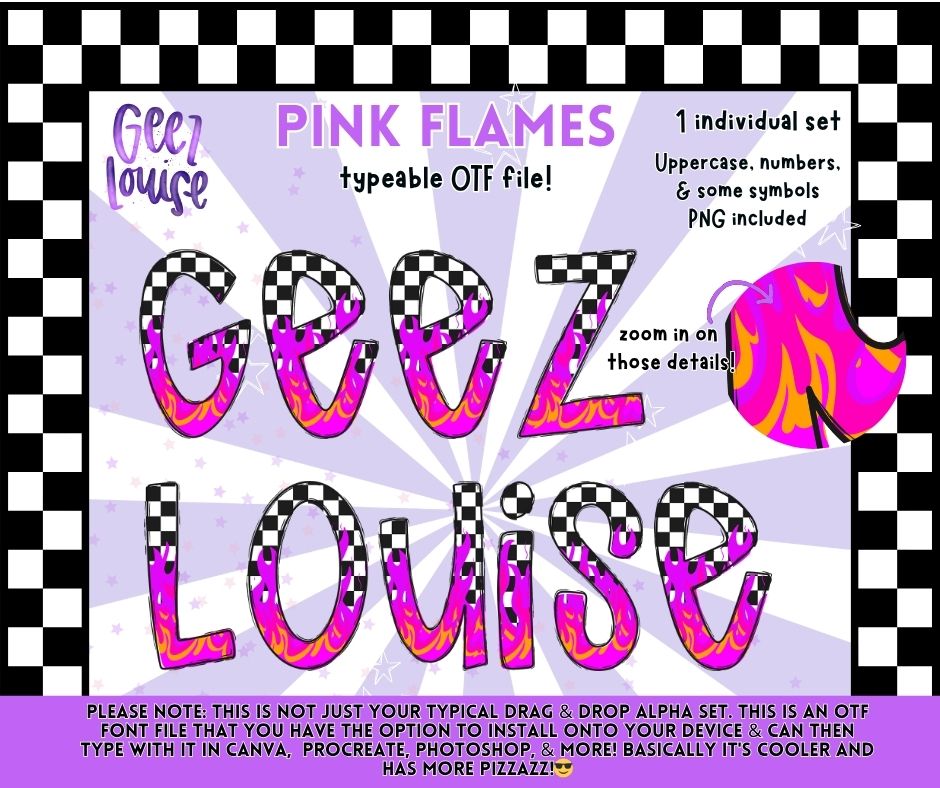
Pink Flames Checkered OTF Font | Typeable Alpha Font + PNG | Retro Neon Grunge Letter Set
Turn your text into a whole vibe with this bold and fiery Pink Flames OTF font 🔥✨
This isn’t your typical drag-and-drop alpha… this is a fully typeable font file that lets you create words, phrases, and designs directly on your device with ease. Packed with neon pink flames, checkered patterns, and retro grunge flair, this set brings serious personality to anything you make.